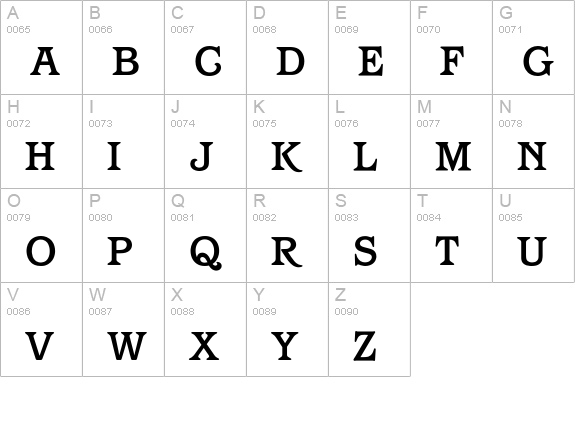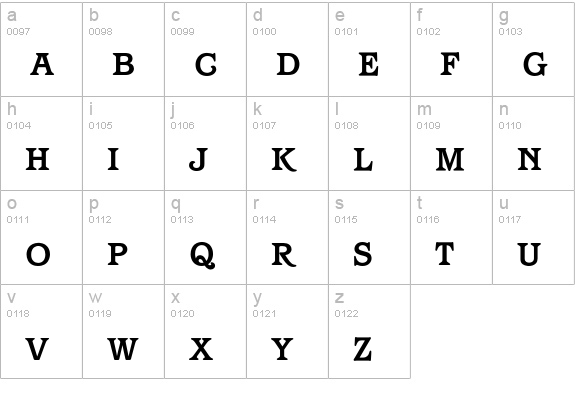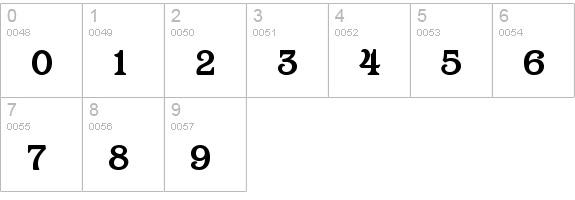
Barcelona* Expert Medium SC is a balanced, medium-weight variant in the Barcelona* typeface family \xE2\x80\x94 well suited to sub-headlines, navigation, and balanced editorial work.
Barcelona Expert Medium SC font is a stunning and versatile typeface that exudes a sense of elegance and sophistication. With its medium weight and expertly crafted design, this font is perfect for conveying a sense of professionalism and style in any project. The Barcelona Expert Medium SC font features clean lines, sharp angles, and a modern aesthetic that is sure to make your text stand out. Whether you are designing a logo, creating a brochure, or working on a website, this font will add a touch of class and refinement to your work. Best of all, Barcelona Expert Medium SC font is completely free to download at FontsMarket.com. This means you can easily access this high-quality font and use it in your projects without any cost. Don't miss out on the opportunity to enhance your designs with this beautiful and versatile typeface. Download Barcelona Expert Medium SC font today and take your work to the next level!